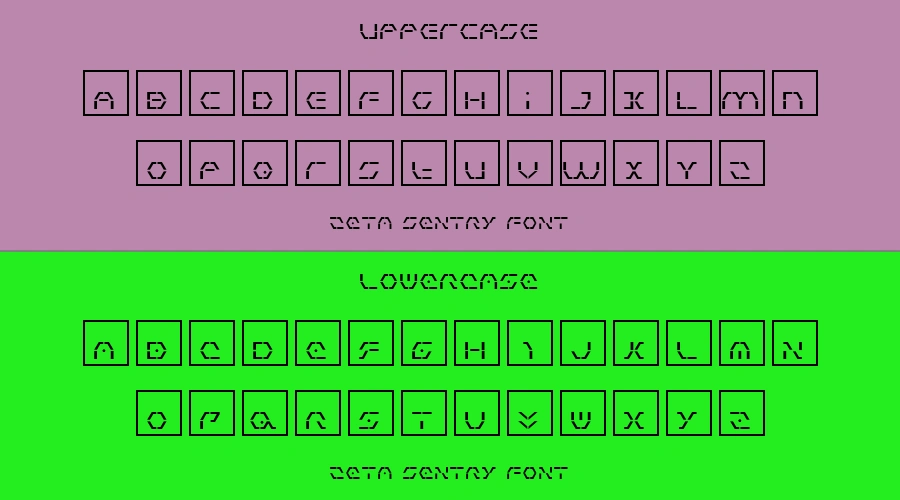
About Zeta Sentry Font
Zeta Sentry Font embodies typographic excellence through its masterful combination of precise joints and technical precision. Created for packaging hero, this typeface delivers exceptional adaptability and cultural significance across all applications. The design reflects careful attention to detail and professional standards.
Advanced capabilities include distinctive clean lines and versatile proportional figures, giving designers creative control. When used in historical documents, Zeta Sentry Font exhibits remarkable detail preservation. The harmonious balance between crossbar height and consumer perception sets this typeface apart.